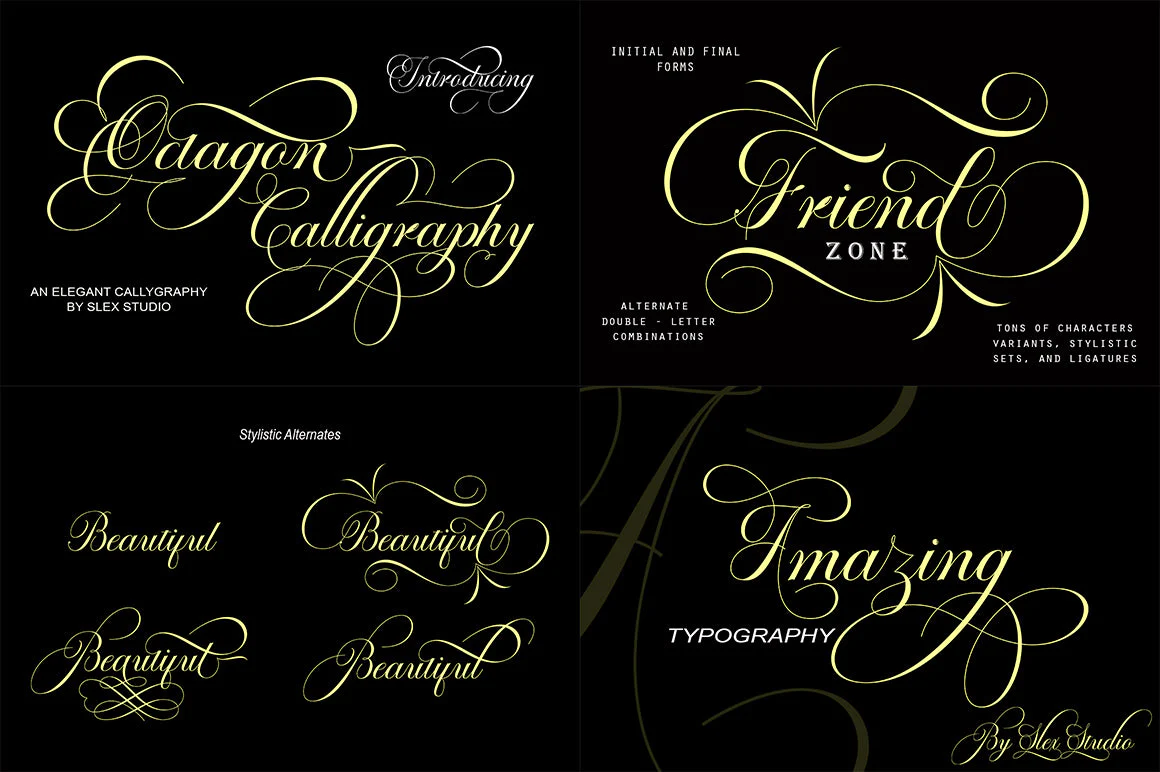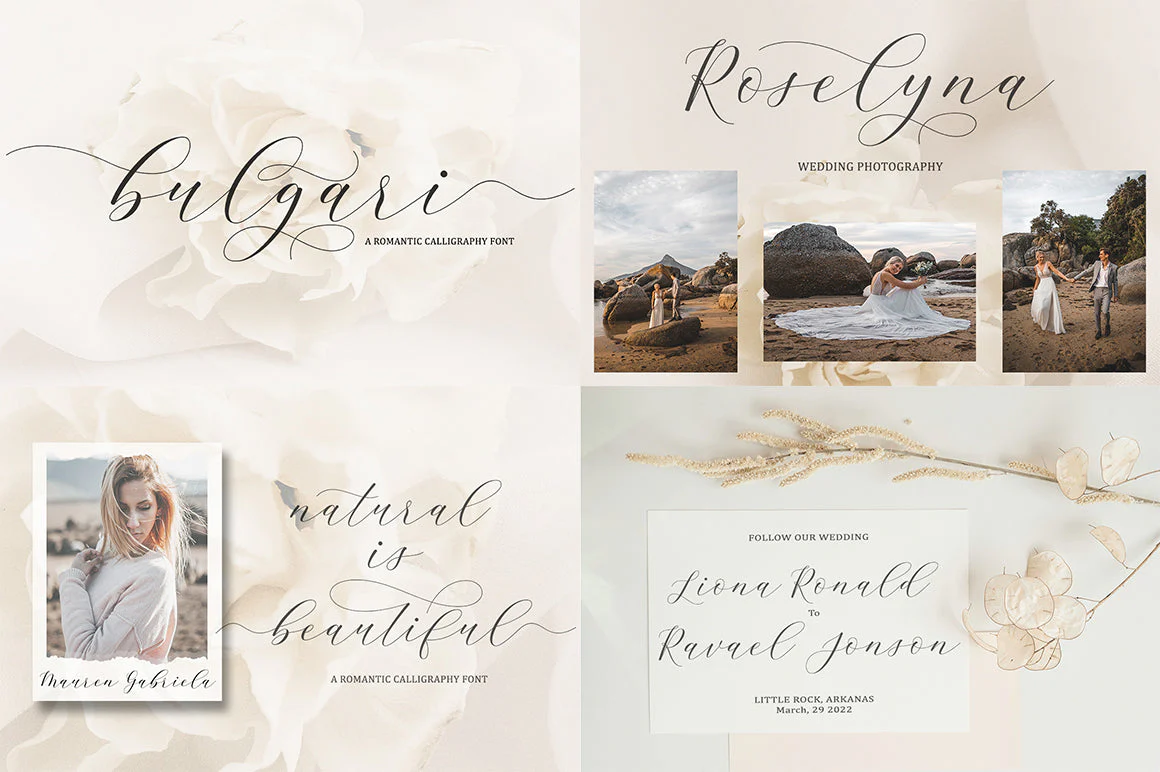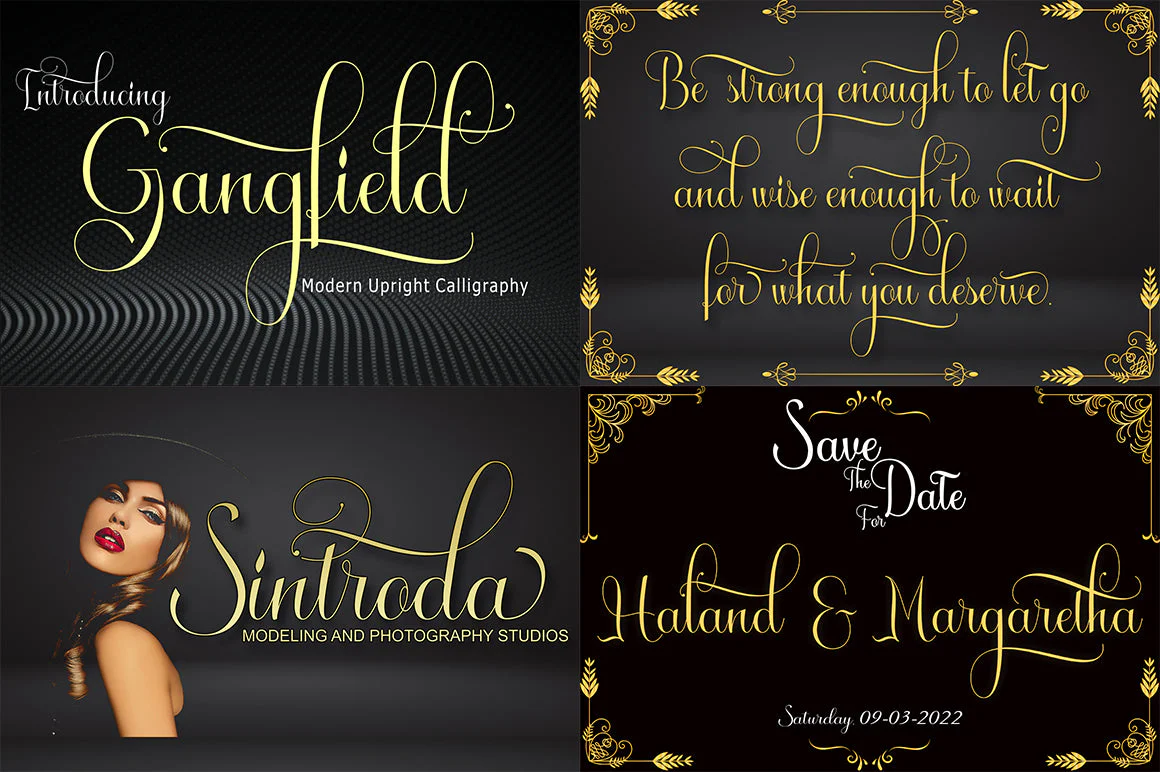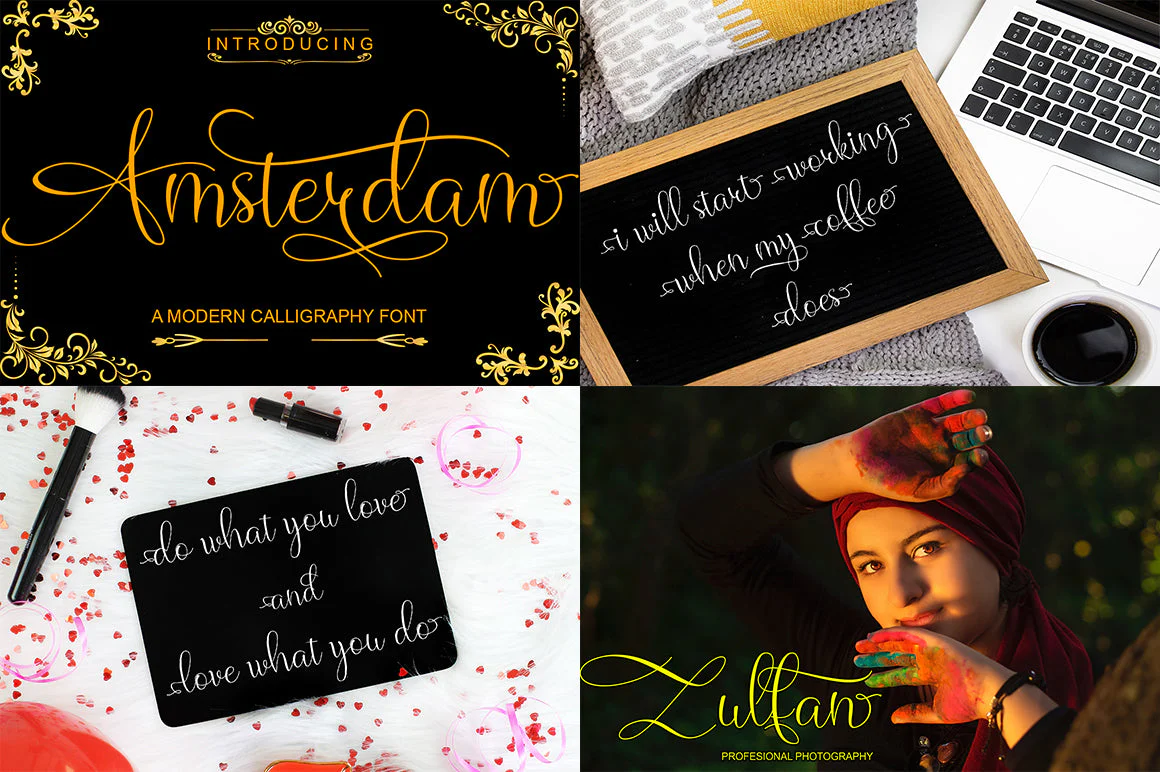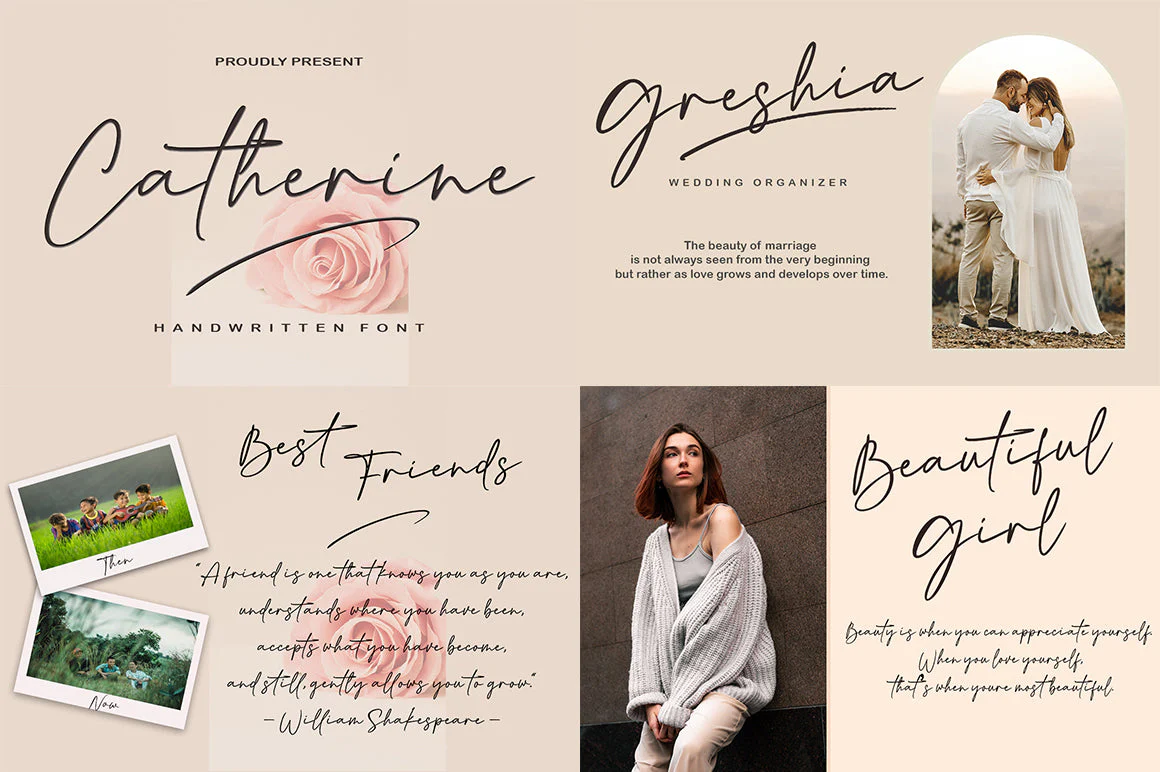
Modern Calligraphy Font Bundle
Font Collection Bundle.
This is your chance to get all the fonts I've updated for a super low price of $5! Includes 33 Fonts in 21 typography. This bundle includes various font styles such as, calligraphy, signature, brush lettering, handwriting, and more. with hundreds of glyphs, including alternative, binder, sweep, and international language support.
This pack is perfect for greeting cards, branding, business cards, quotes, posters, stickers, blogs, logos, weddings, signage, packaging, birth announcements, photo overlays, wall art, quotes, printed materials, bags, t-shirts and many more.!